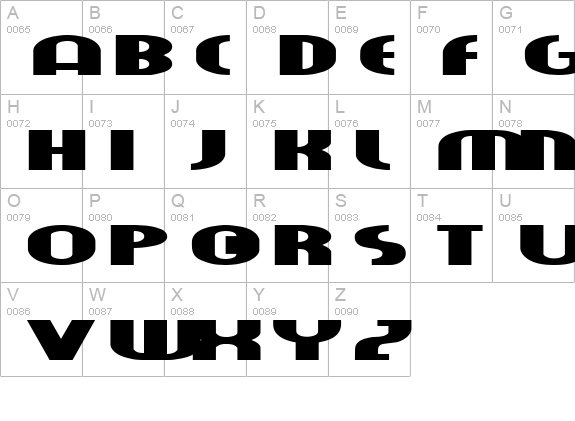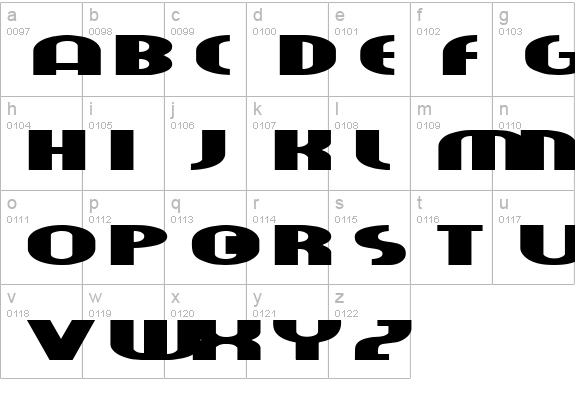
The Fatboy font is a bold and eye-catching typeface that commands attention with its robust and playful design. This fun and quirky font is perfect for making a statement in headlines, logos, posters, and more. Its thick strokes and rounded edges give it a friendly and inviting appearance, making it a versatile choice for a variety of design projects. Best of all, the Fatboy font is completely free to download at FontsMarket.com. Whether you're a designer looking to add some personality to your projects or just someone who appreciates a unique and creative font, the Fatboy font is a fantastic choice that won't cost you a penny. Download it today and let your creativity shine with this free and fabulous typeface!